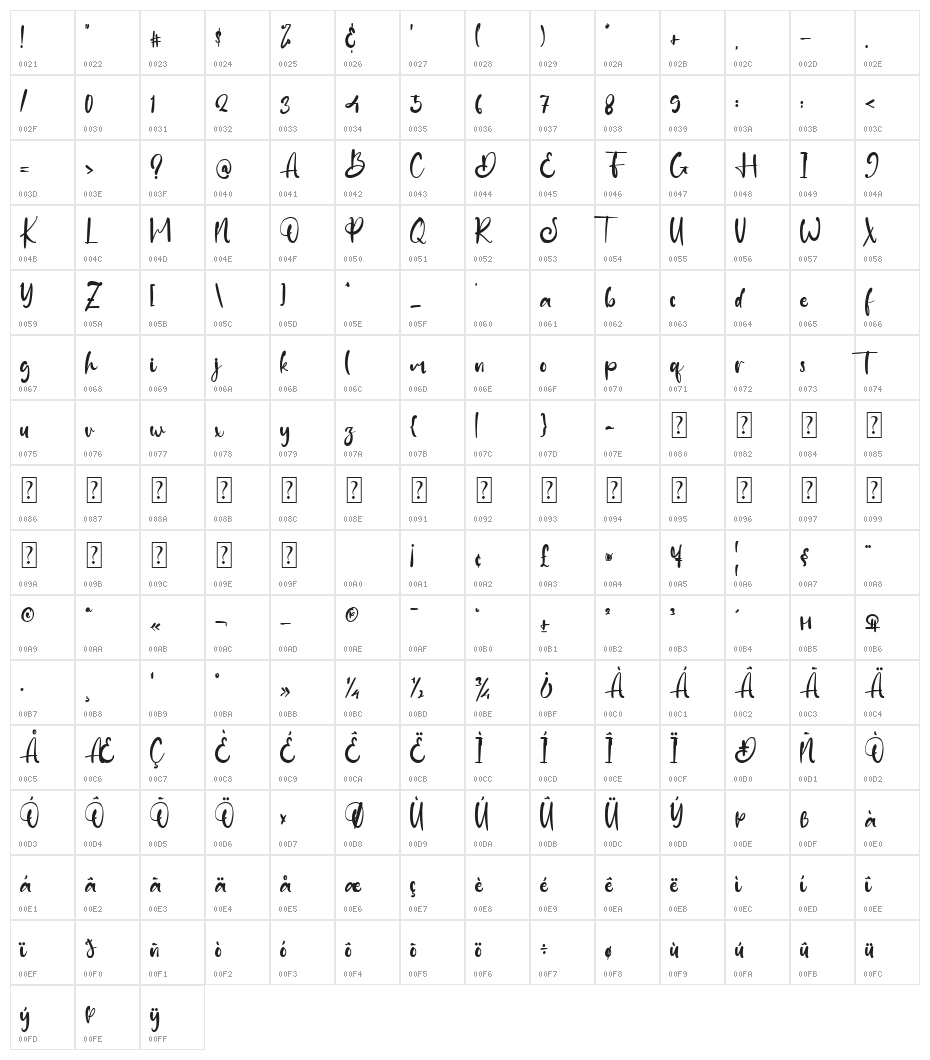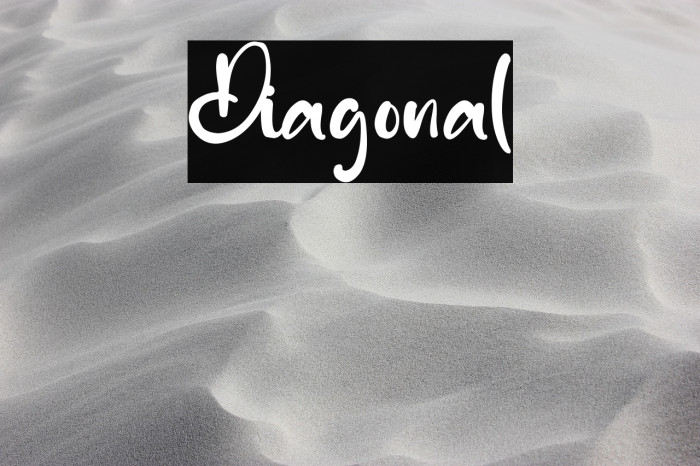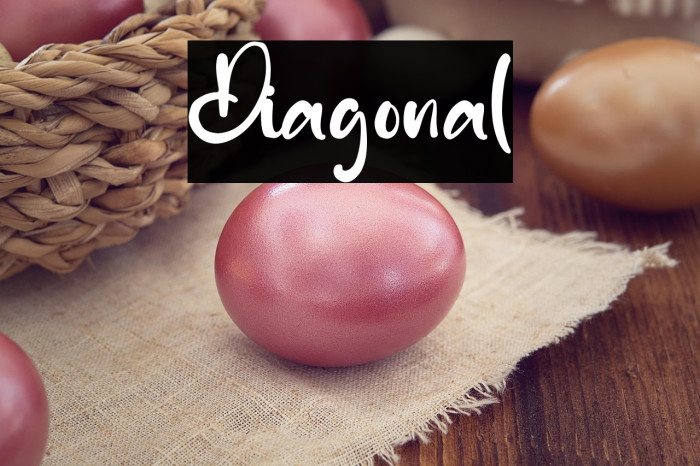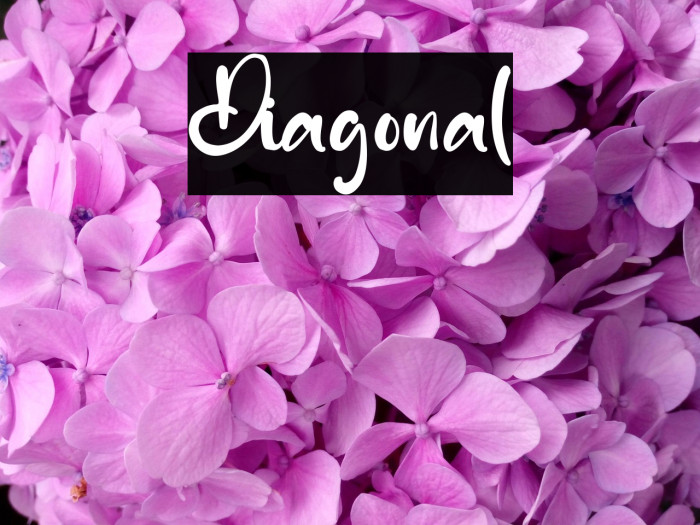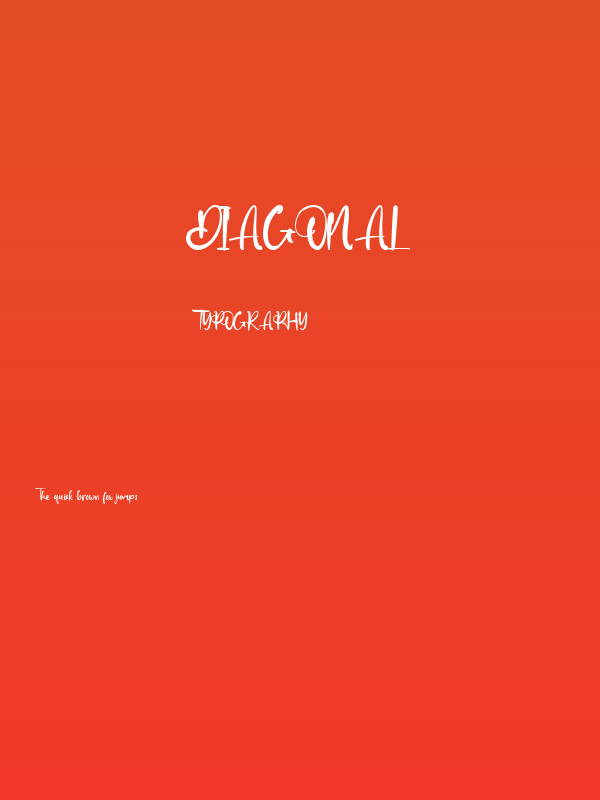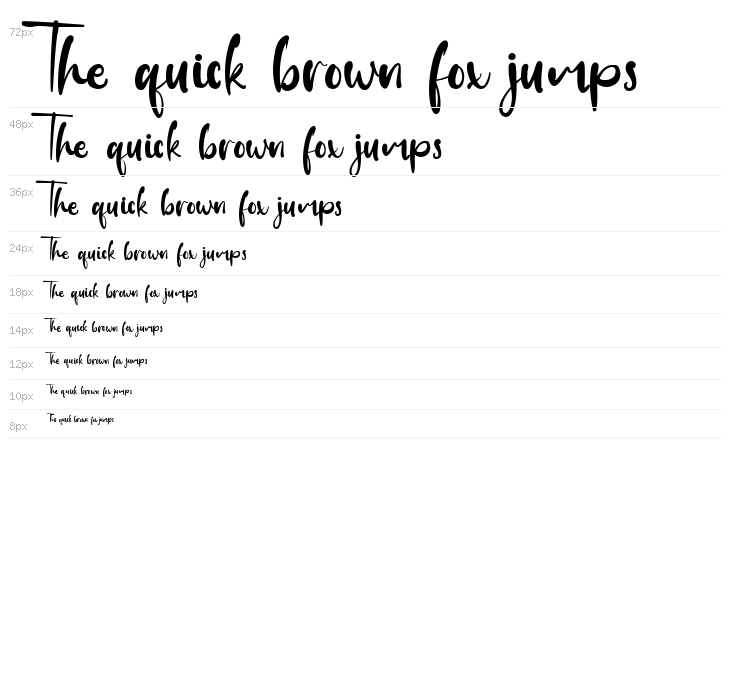
Diagonal Font
Diagonal Description
This font features a playful and artistic handwritten style, characterized by its fluid and dynamic strokes. The uppercase letters are bold and expressive, with unique flourishes that add a sense of movement and creativity. The lowercase letters maintain a consistent flow, complementing the uppercase with a slightly more restrained yet still lively appearance. Numbers are clear and legible, maintaining the same whimsical style. Special characters are thoughtfully designed to match the overall aesthetic, making this font versatile for various creative applications. The font's overall appearance is both modern and artistic, ideal for projects that require a personal and engaging touch.
| Use Case | Logos, Headlines, Creative projects |
| Proposed Projects | Ideal for greeting cards, invitations, branding, and social media graphics. |